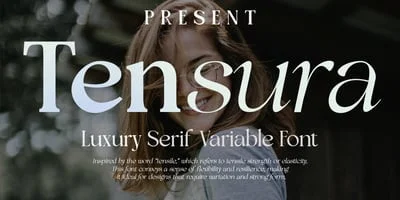
Tensura Font
The Tensura Font is perfect for fantasy-themed design projects including anime and manga publications, gaming interface design, fantasy novel covers, sci-fi movie posters, otherworldly brand identities, mystical event materials, magical product packaging, and isekai-inspired marketing campaigns. This enchanting typeface brings magical sophistication and fantasy realm authenticity to any design project celebrating otherworldly adventures and mystical storytelling.
What makes Tensura Font so exciting is its captivating blend of mystical elegance with modern readability that creates an immediate sense of magical adventure and fantasy realm sophistication. The letters feature ethereal characteristics with subtle otherworldly influences that evoke feelings of transformation and magical possibilities. This distinctive fantasy character makes it perfect for brands and projects that want to communicate magical transformation, adventure, and the irresistible appeal of fantasy storytelling and gaming culture.
The Tensura Font family typically includes regular and bold weights, often with magical variations and fantasy-inspired decorative elements. Many versions feature mystical symbols, gaming glyphs, and otherworldly ornaments that enhance its authenticity for fantasy entertainment and gaming applications.
Whether you're designing for gaming companies, fantasy publishers, or anime-inspired brands, Tensura Font offers the perfect solution for projects that need to capture the spirit of magical transformation and fantasy adventure. This font transforms ordinary text into enchanting designs that immediately communicate magical possibilities, fantasy storytelling, and the captivating appeal of otherworldly experiences to audiences passionate about anime, gaming, and fantasy entertainment.